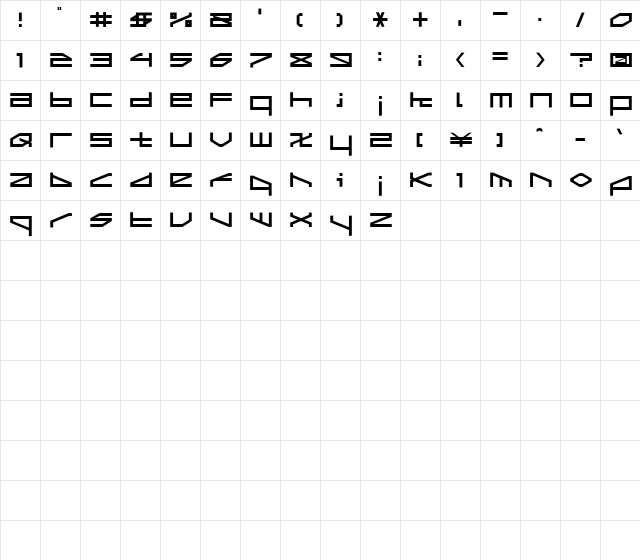
ltr-02:morbid vision Regular
ltr-02:morbid vision is a composed and adaptable typeface that performs quietly and consistently across a wide range of design contexts.